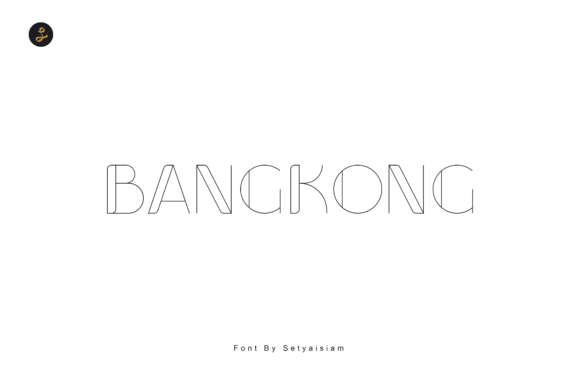
Enter the Bangkong Font, a dainty sans serif font designed to elevate your projects to the next level. Whether you’re creating a logo, designing stationery, or working on a clothing line, Bangkong Font is the perfect addition to your toolkit. Its versatility and charm make it an invaluable asset for designers, allowing you to express your creativity and bring your vision to life.
Bangkong Font Key Features
- Font Family: Bangkong is a unique and custom-designed font, making it ideal for those seeking a distinctive look.
- Character Set: Supports a wide range of languages, including Latin, Cyrillic, and Greek scripts, making it a versatile choice for global projects.
- Size: Bangkong Font is available in various font sizes, including 100, 200, 300, 400, 500, 600, 700, 800, and 900, catering to diverse design needs.
- Resolution: Optimized for high-resolution displays, ensuring crisp and clear typography even at large sizes.
- Unique Characteristics: Bangkong Font features a distinctive, modern design with a blend of geometric and organic elements, making it perfect for branding, advertising, and editorial projects.
Bangkong Font Review
- Unique aesthetic: Bangkong font has a distinct, modern look that sets it apart from other fonts.
- Good for digital use: The font is clear and readable on various digital platforms, including websites and mobile apps.
- Supports multiple languages: Bangkong font supports a wide range of languages, making it a great option for international projects.
- Not ideal for print use: The font’s design may not be suitable for print materials, such as business cards or brochures.
- Lack of italic and bold variations: The font only comes in a regular style, which may limit its versatility.
- Not suitable for small text: The font’s design may not be legible in smaller text sizes, making it less ideal for body text.
Overall, I think Bangkong font is a solid choice for digital projects that require a modern and unique look. However, it may not be the best option for print materials or projects that require a more traditional font style. With some additional variations and refinements, I think Bangkong font has the potential to be a top contender in the font market.
To get the most out of the Bangkong font, try using it in combination with bold or italic text to create a sense of contrast. You can also experiment with different font sizes and colors to create a visually appealing design.
The Bangkong font is perfect for creative projects such as:
- Graphic design
- Typography
- Branding
- Marketing materials
Alternatives to Bangkong Font
1. Poppins Font
Poppins is a sans-serif font designed to be highly legible and versatile. It’s perfect for body text, headings, and titles. Poppins has a clean and modern design, making it an excellent choice for digital products, websites, and mobile apps.
Compared to Bangkong Font, Poppins has a more neutral tone and is more suitable for a wide range of applications. Bangkong Font has a more playful and casual feel, whereas Poppins is more professional and formal.
Open Sans is another popular sans-serif font that’s highly legible and versatile. It’s designed to be readable on a wide range of devices and screen sizes. Open Sans is perfect for body text, headings, and titles, and it’s widely used in digital products, websites, and mobile apps.